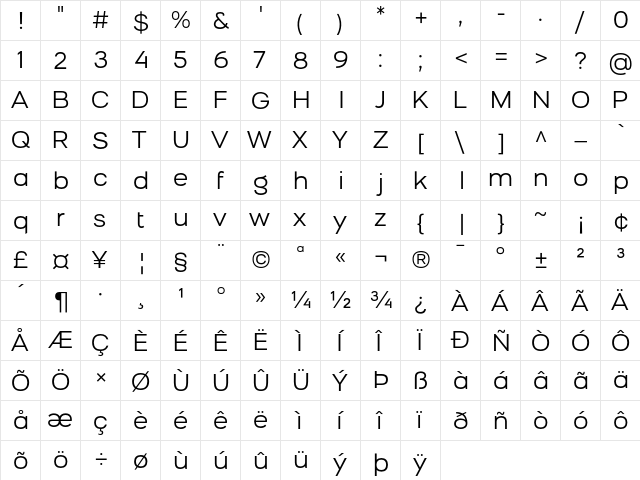
Bronova Regular
Design Context for Bronova Typeface
Bronova takes a measured approach to typography — its balanced proportions and neutral character make it a reliable workhorse for both digital and print work.